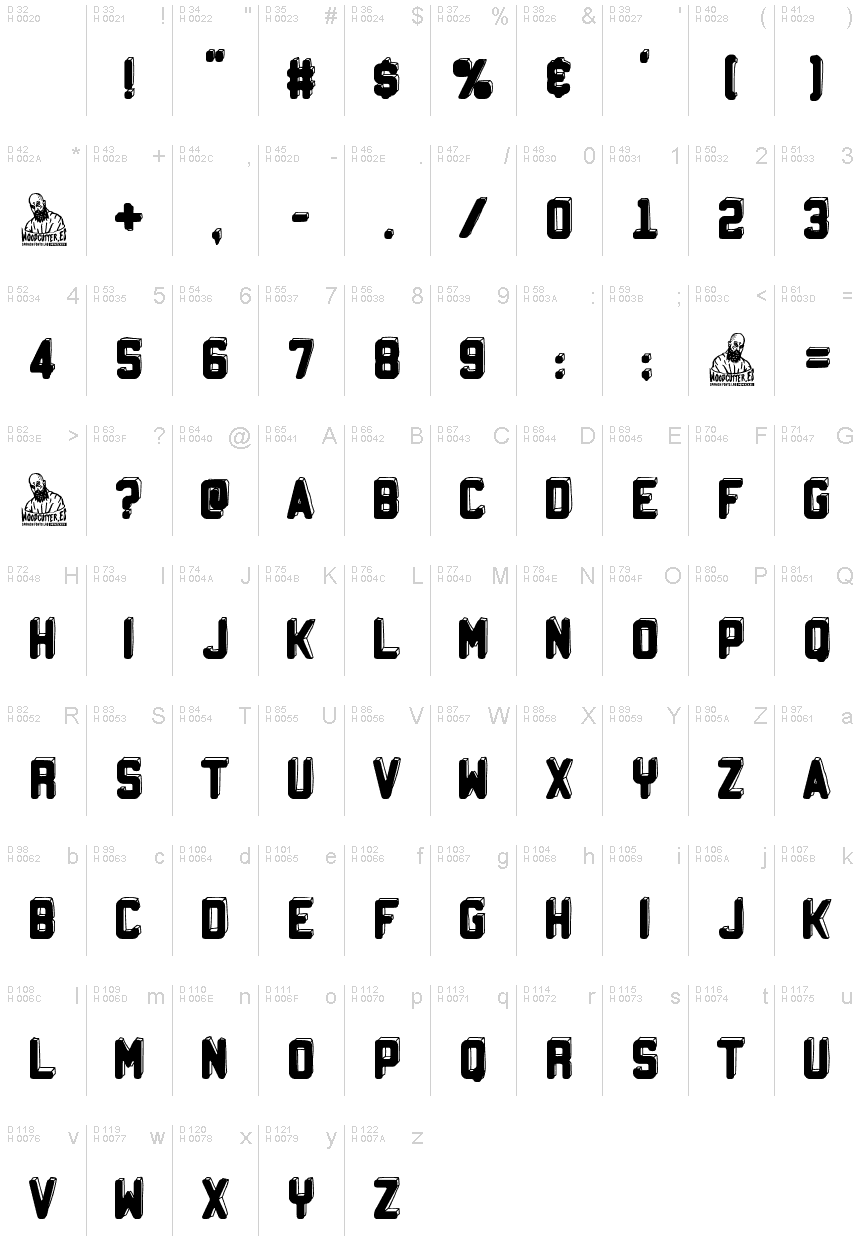
Washington Eagles
Washington Eagles is a captivating display font designed by Woodcutter. With its semi-bold weight and semi-condensed width, this font exudes strength and elegance.
It is perfect for projects that require a bold statement, such as sports logos, team jerseys, or action-packed movie posters. The Washington Eagles font brings an air of confidence and power to any design, making it suitable for branding materials, magazine covers, or even impactful social media graphics.